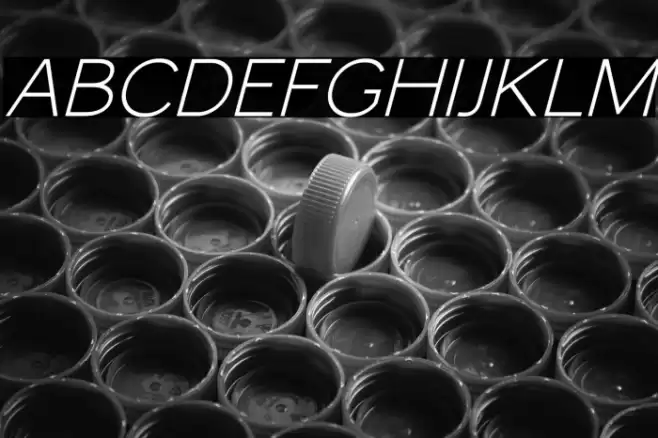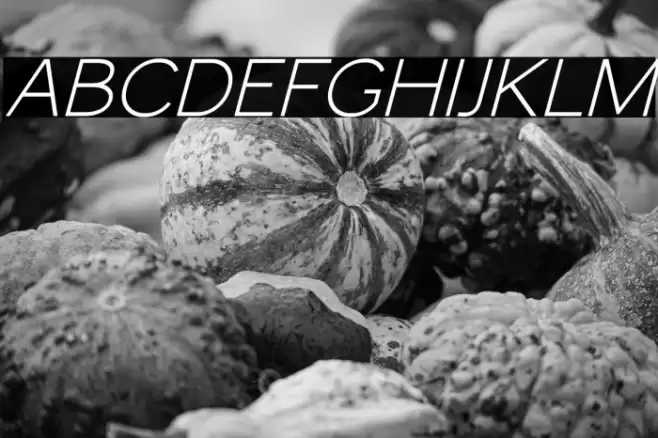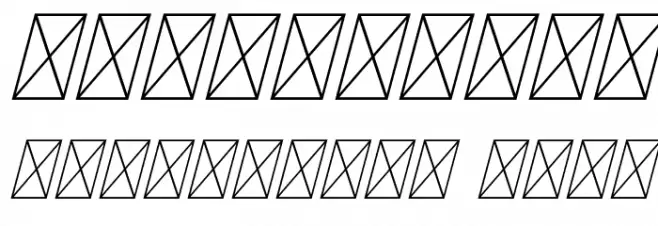
MonocoleFree-Italic Font
MonocoleFree-Italic Description
This font features a sleek, italicized style with smooth, flowing lines that create a sense of movement and elegance. The characters are slightly slanted, giving them a dynamic and modern appearance. The strokes are consistent in width, providing a uniform look across all letters. The font maintains a clean and professional aesthetic, making it suitable for various design applications. The spacing between characters is balanced, ensuring readability while maintaining its stylish flair.
A sleek, italicized font with smooth lines and a modern aesthetic from Uncategorized fonts.